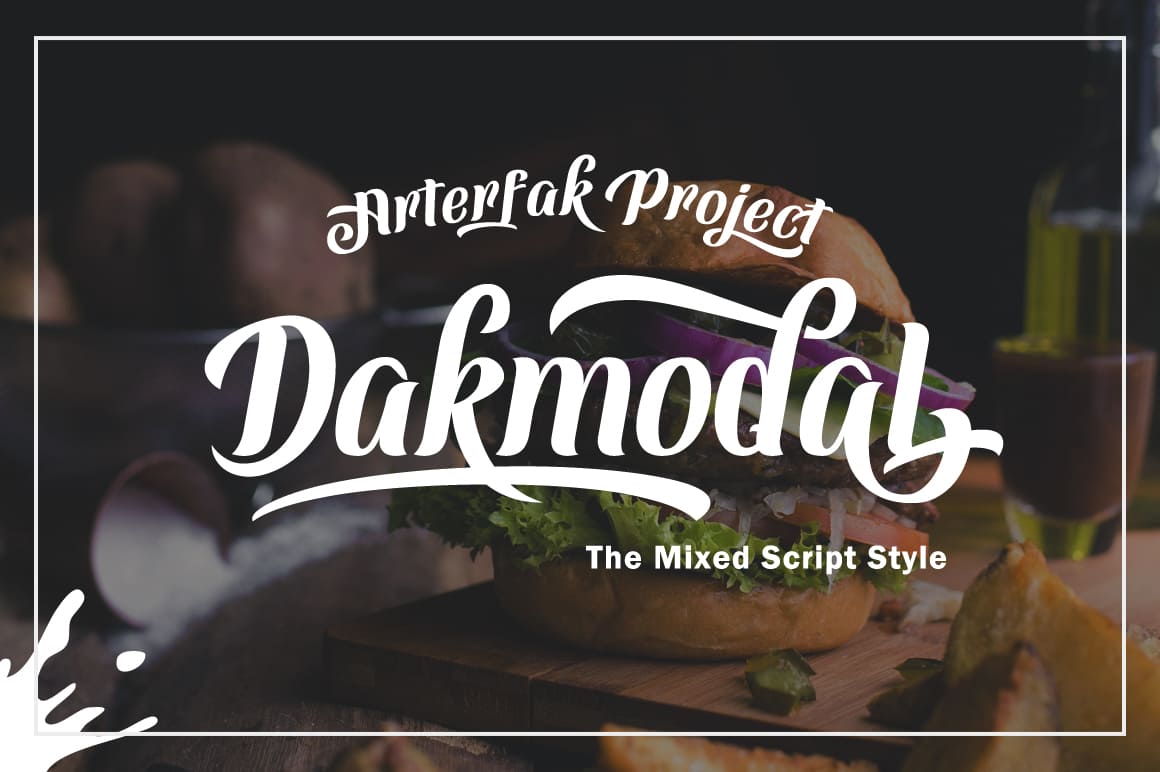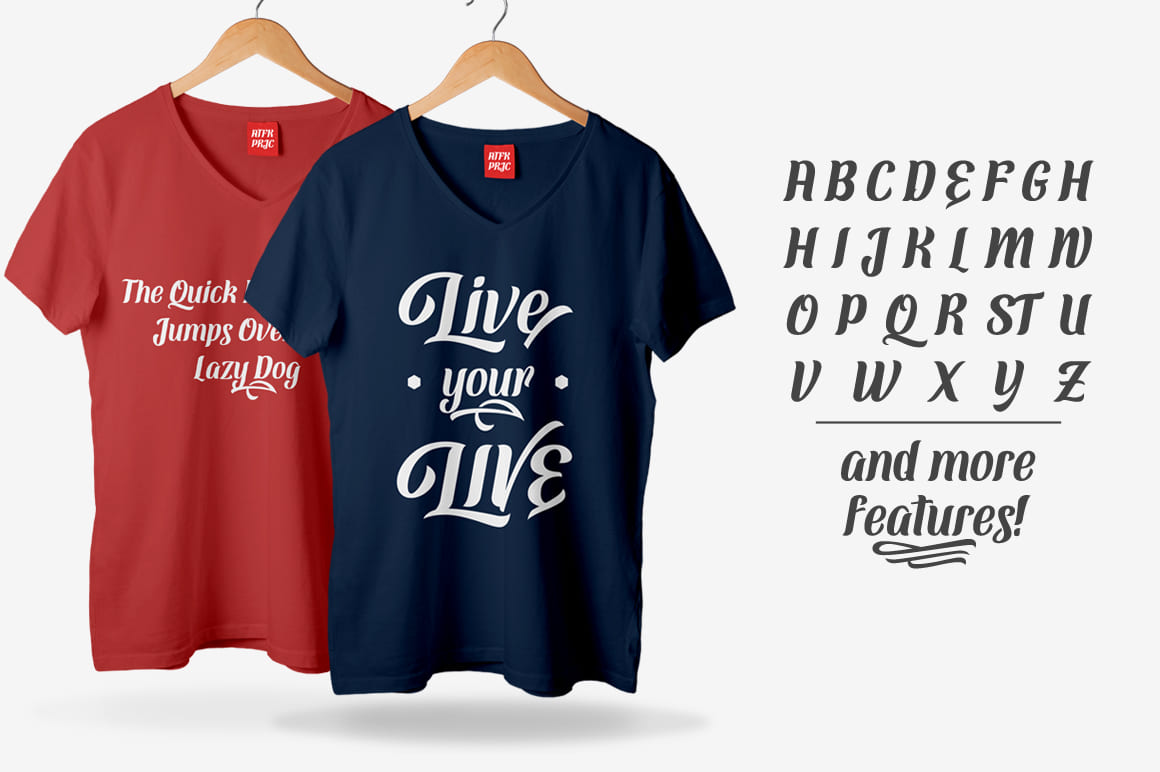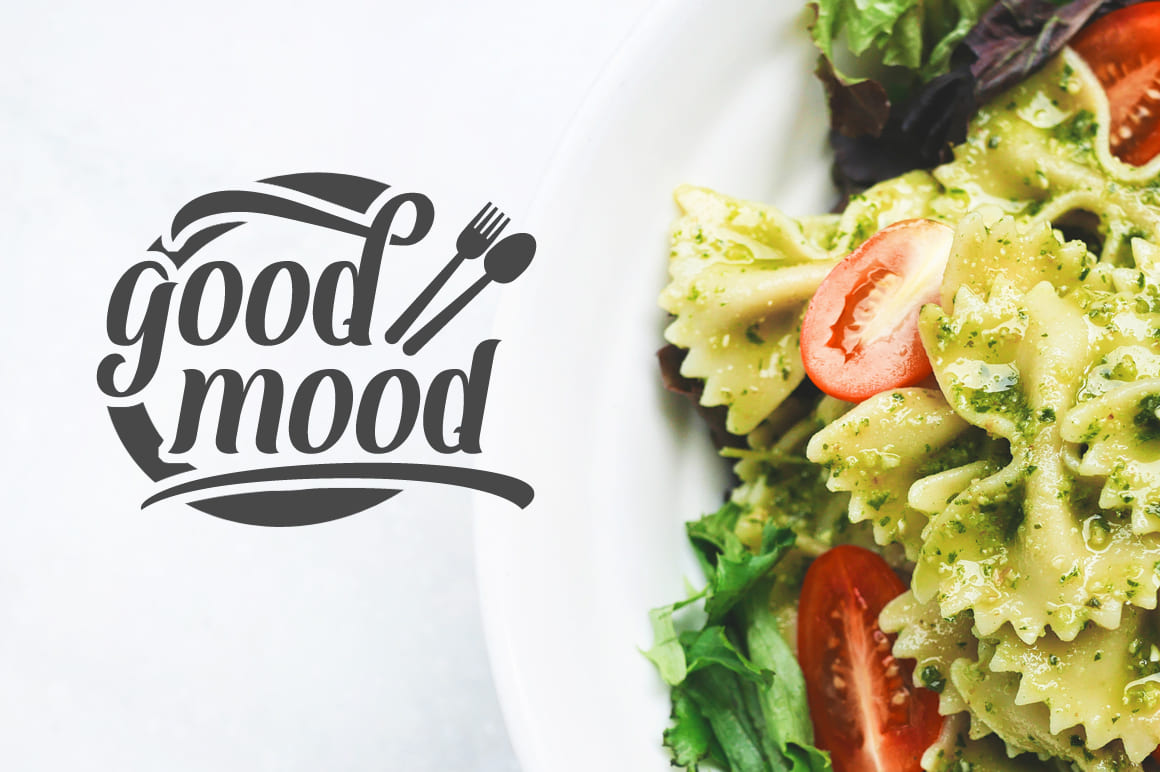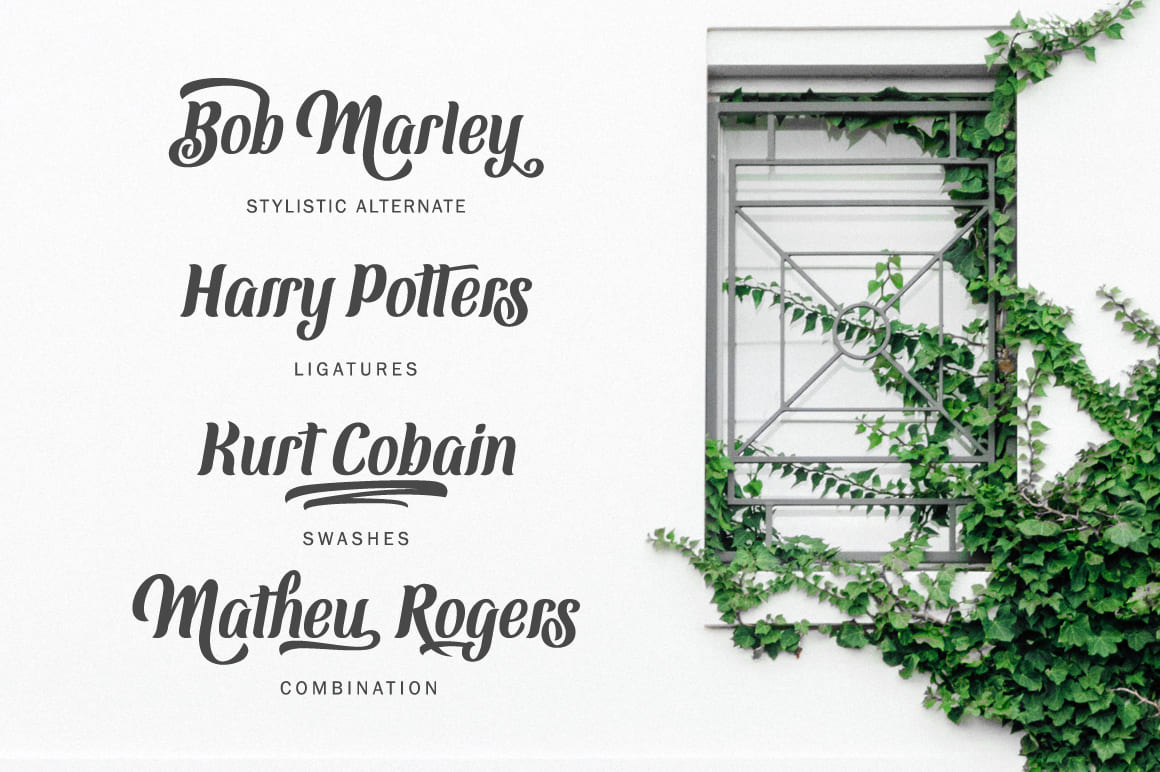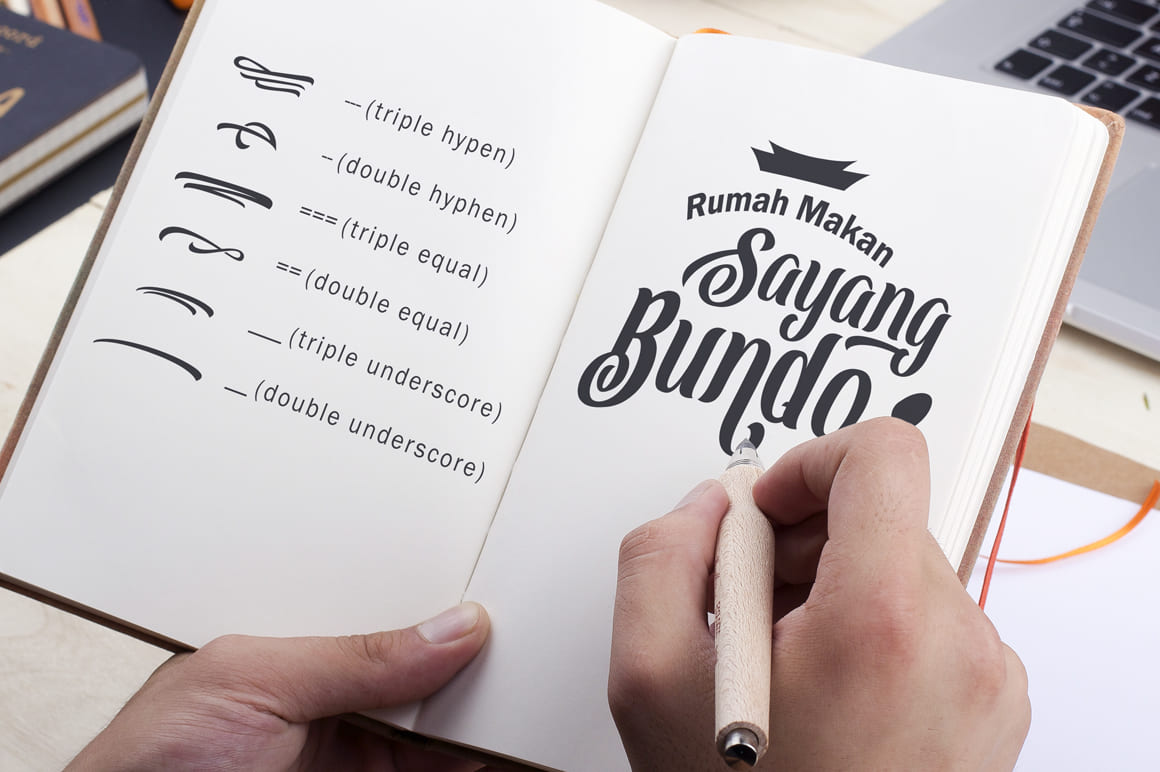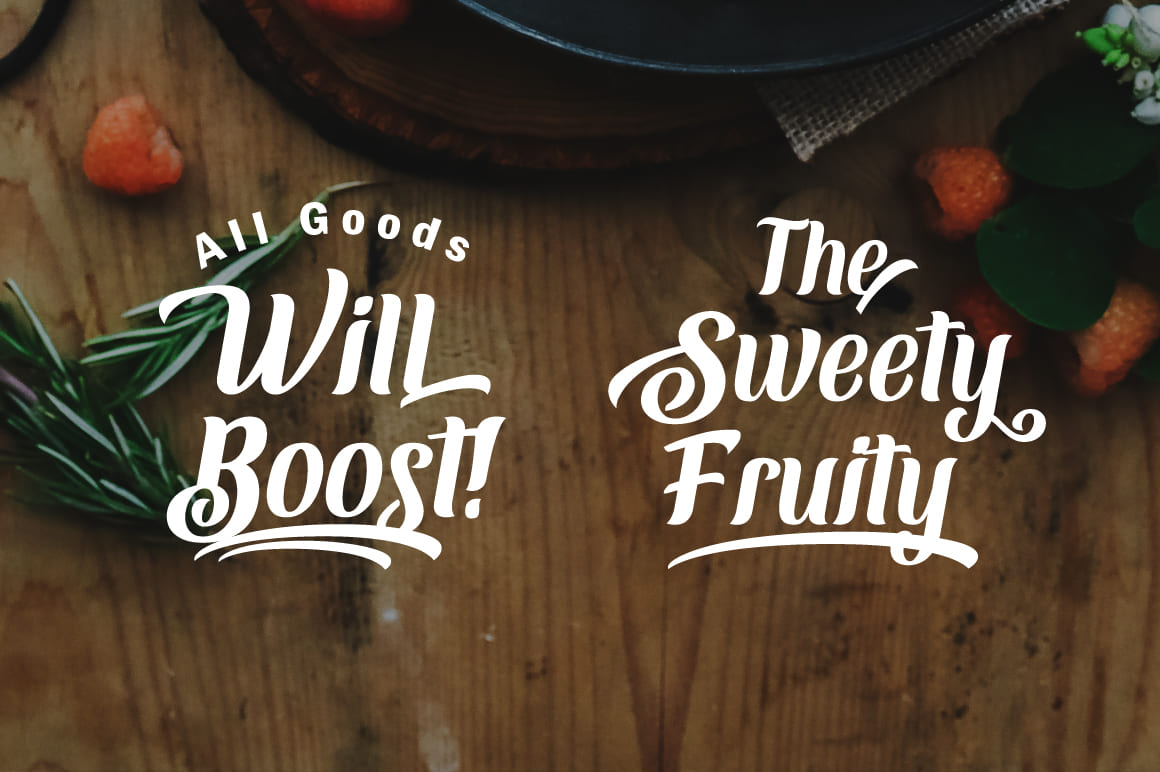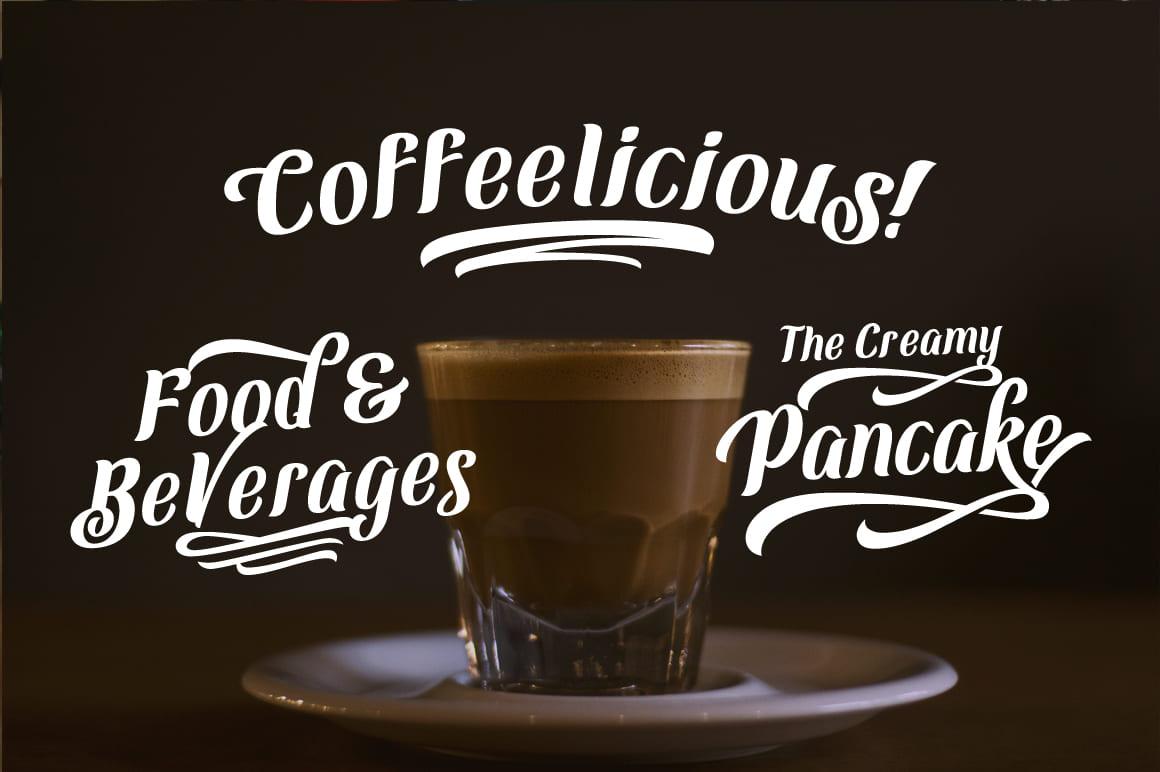
Introducing Dakmodal, a semi-formal script typeface inspired by a combination of brush lettering styles recommended for cafe, food & beverage design, clothing lines and more!